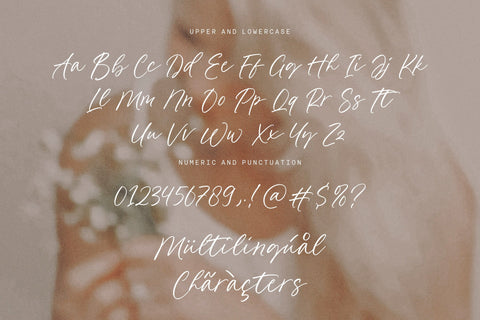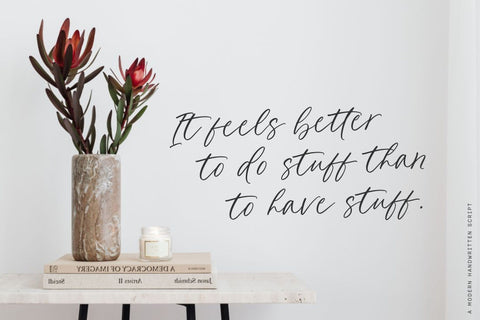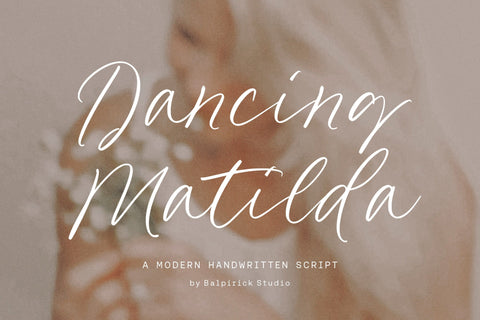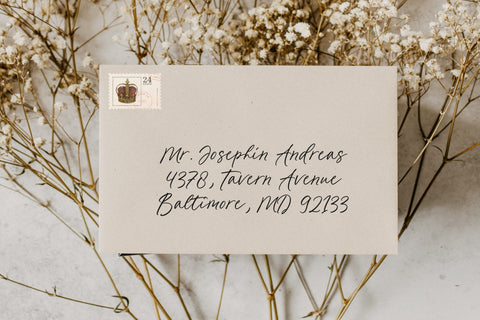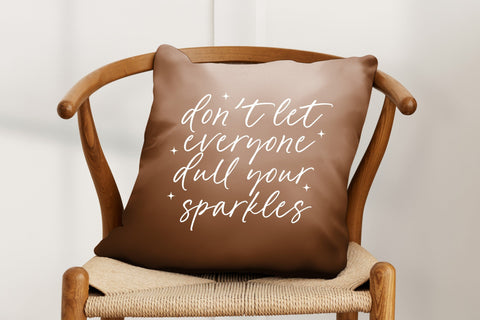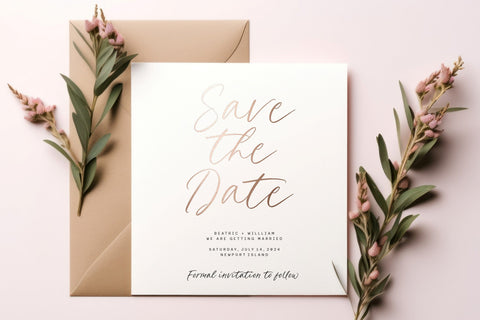
Dancing Matilda Font
Dancing Matilda is a Modern Handwritten Script Font that's perfect for adding a personal touch to your design projects! With its natural, organic feel and unique character.
Crafted with care and attention to detail, this font is incredibly versatile and can be used for a range of design projects, including logos, branding, invitations, and more. Its modern, handwritten style gives it a unique character that's sure to make an impact.